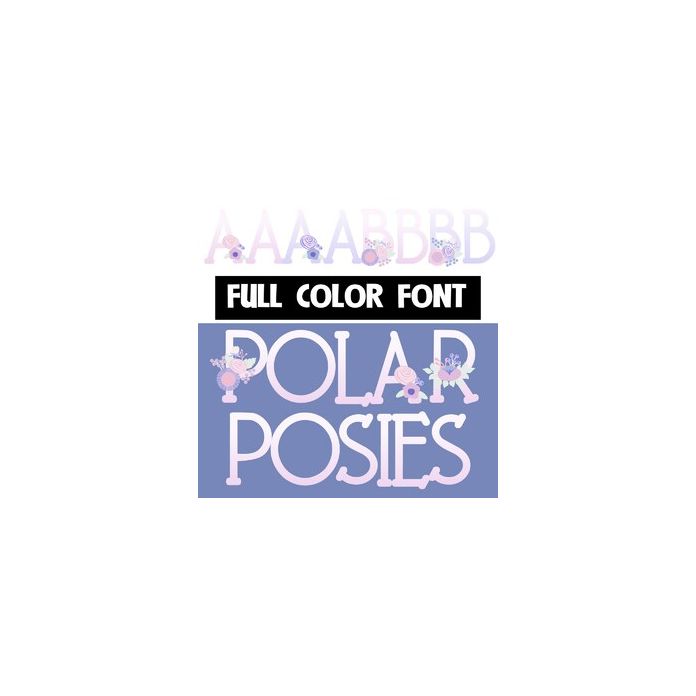
This full-color font features a freezing cold, winter-color palette and flowers here and there. There is an alt upper and lowercase with additional colors that you can access through Silhouette's glyph map.